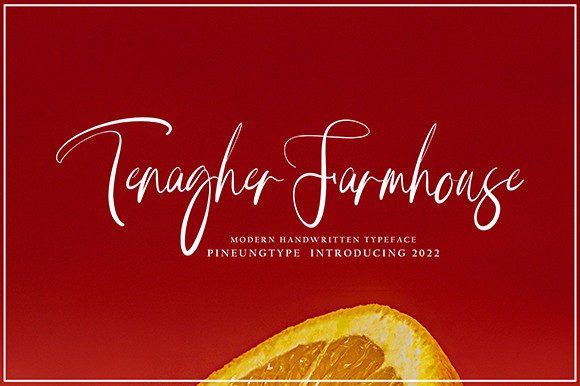
Introducing Tenagher Farmhouse, a stunning and elegant script font family that will transform your creative visions into captivating realities. With its gorgeous cursive design and innovative style, Tenagher Farmhouse stands out as the perfect tool for a multitude of projects, including quotes, logos, blog headers, posters, banding, letters, invitations, stationery, and much more.
Embrace the beauty of the Tenagher Farmhouse font family and immerse yourself in a world of artistic possibilities. Whether you are a seasoned designer or just starting your journey into the world of typography, this font family will empower you to create designs that captivate and inspire. Its intricate details and flowing strokes add an air of sophistication and charm that will elevate your work to new heights.
Unleash your creativity and let Tenagher Farmhouse guide you towards creating designs that make a lasting impression. Its timeless elegance and versatility make it the perfect choice for projects that demand a touch of refinement and individuality. From personal projects to professional endeavors, Tenagher Farmhouse is your trusted companion, ready to bring your ideas to life with grace and beauty.
As you explore the vast potential of Tenagher Farmhouse, discover the endless possibilities it holds for your creative projects. Its versatility allows it to blend seamlessly into a variety of design styles, ensuring that your creations always stand out from the crowd. Dive into the Tenagher Farmhouse experience and unlock a world of captivating designs that will leave an unforgettable mark on your audience.
Embrace the power of Tenagher Farmhouse and embark on a creative journey like no other. Let its elegant curves and charismatic style guide you as you craft designs that tell a story, convey a message, and leave an indelible imprint on the hearts of your readers or viewers. Tenagher Farmhouse is your gateway to a world of creativity, where imagination reigns supreme and your designs shine with brilliance.